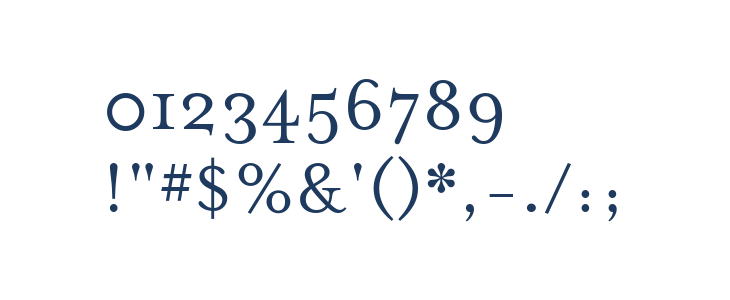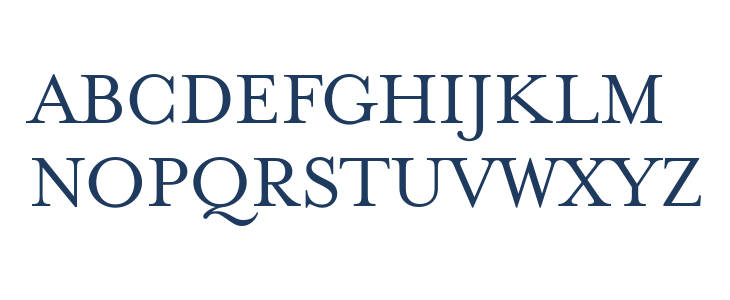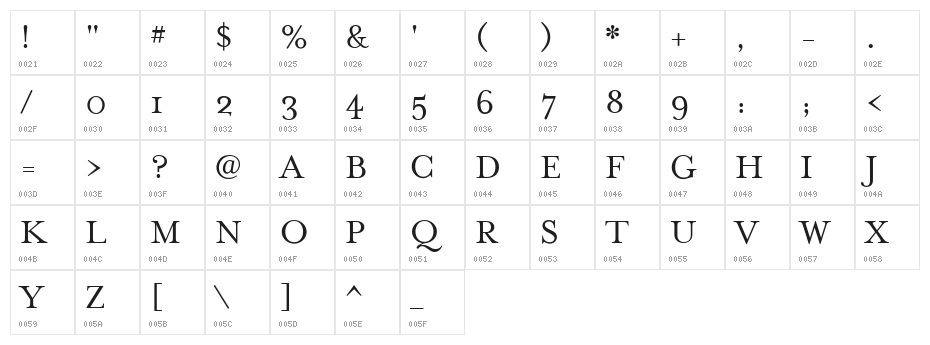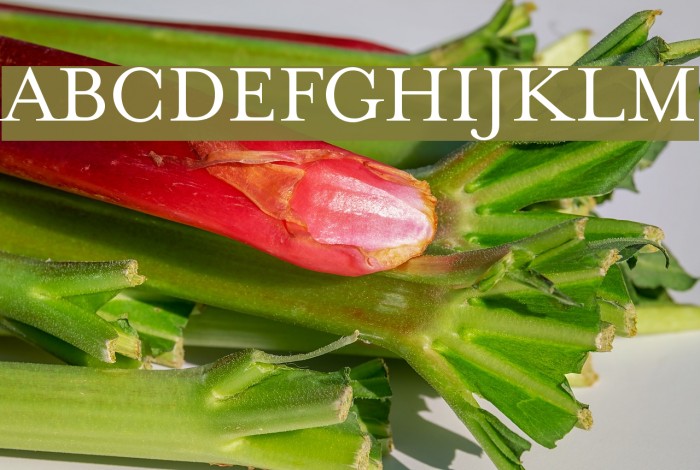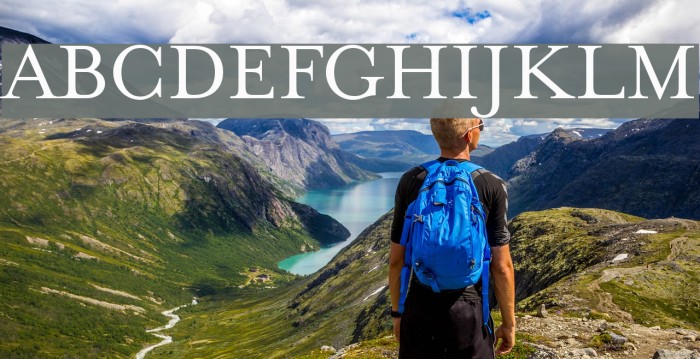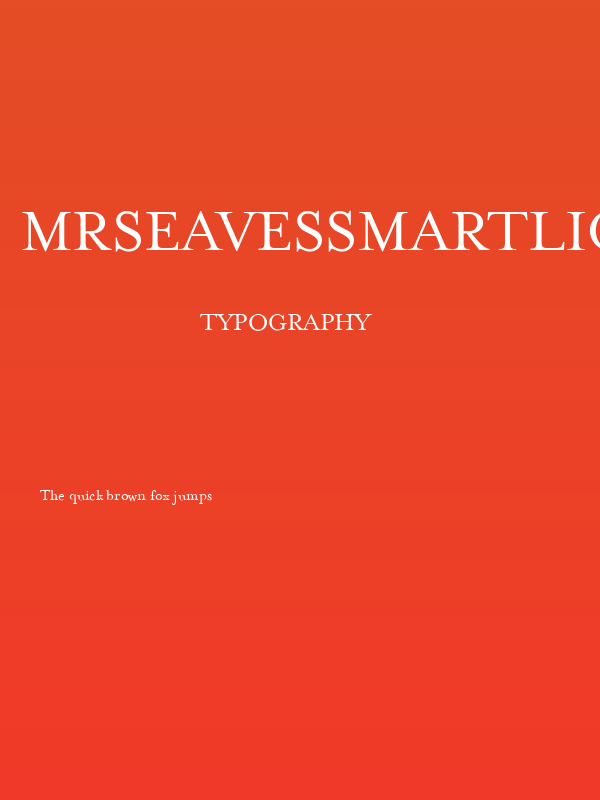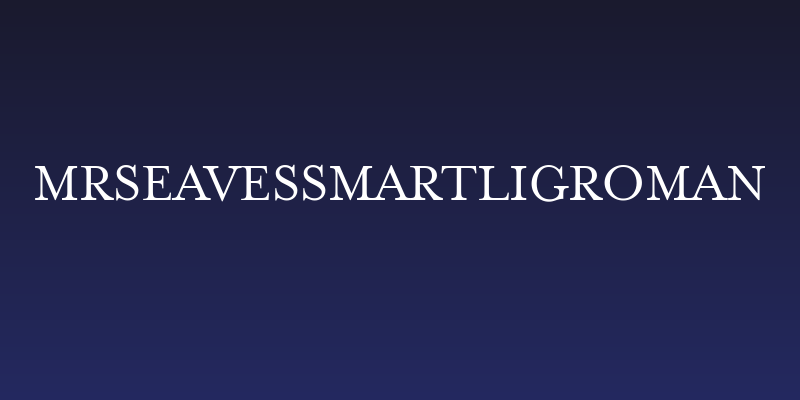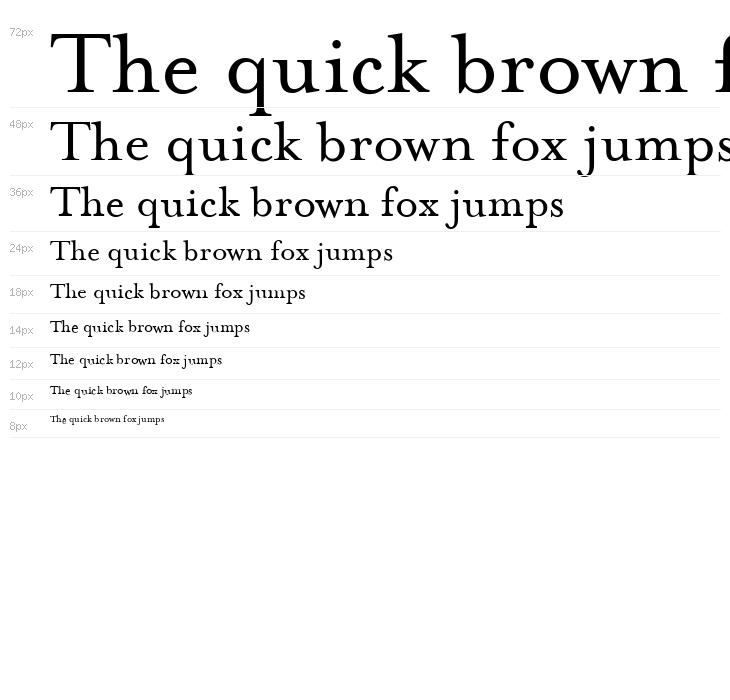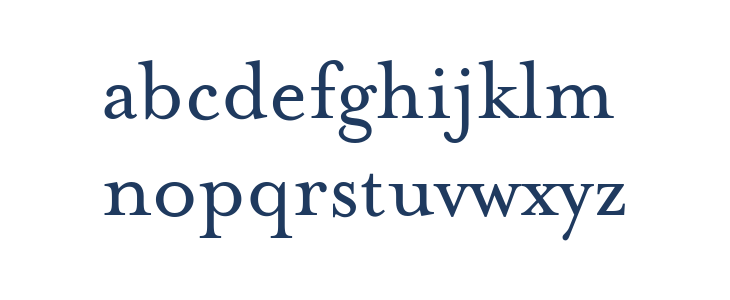
MrsEavesSmartLigRoman Font
MrsEavesSmartLigRoman Description
This font exhibits a classic serif style with elegant and refined letterforms. The serifs are pronounced, adding a touch of sophistication and readability. The uppercase letters are well-proportioned, while the lowercase letters maintain a consistent flow, enhancing the overall harmony of the typeface. The numerals are distinct and clear, ensuring legibility in various contexts. Special characters are thoughtfully designed, complementing the aesthetic of the font. The overall appearance is timeless, making it suitable for a wide range of applications.
| Use Case | Body text, Headlines, Editorial design |
| Proposed Projects | Ideal for book typesetting, formal invitations, branding, and editorial design. |